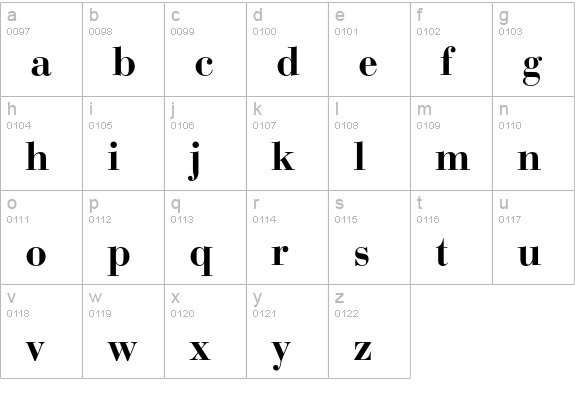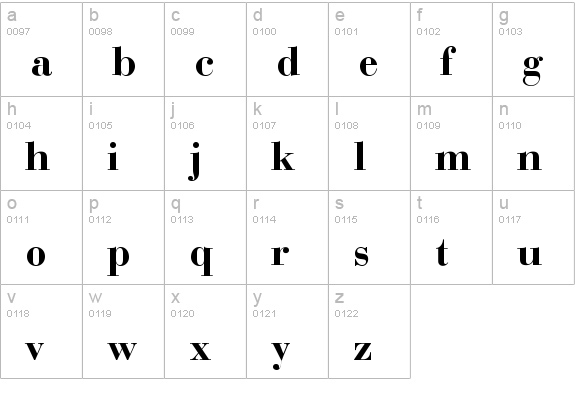
Bauer Bodoni Std 1 Bold is a strong, high-contrast variant in the Bauer typeface family \xE2\x80\x94 well suited to headlines, attention-grabbing titles, and strong calls-to-action.
Bauer Bodoni Std 1 Bold is a striking and elegant font that exudes sophistication and class. With its bold weight and distinctive serifs, this typeface commands attention and makes a statement. The clean lines and timeless design of Bauer Bodoni Std 1 Bold make it a versatile choice for a wide range of design projects, from branding to editorial layouts. The best part? Bauer Bodoni Std 1 Bold is available for free download at FontsMarket.com, making it accessible to designers and creatives looking to add a touch of luxury to their work without breaking the bank. Whether you're designing a high-end fashion magazine, creating a sleek logo for a luxury brand, or crafting an elegant wedding invitation, Bauer Bodoni Std 1 Bold is sure to elevate your design with its bold and sophisticated aesthetic.